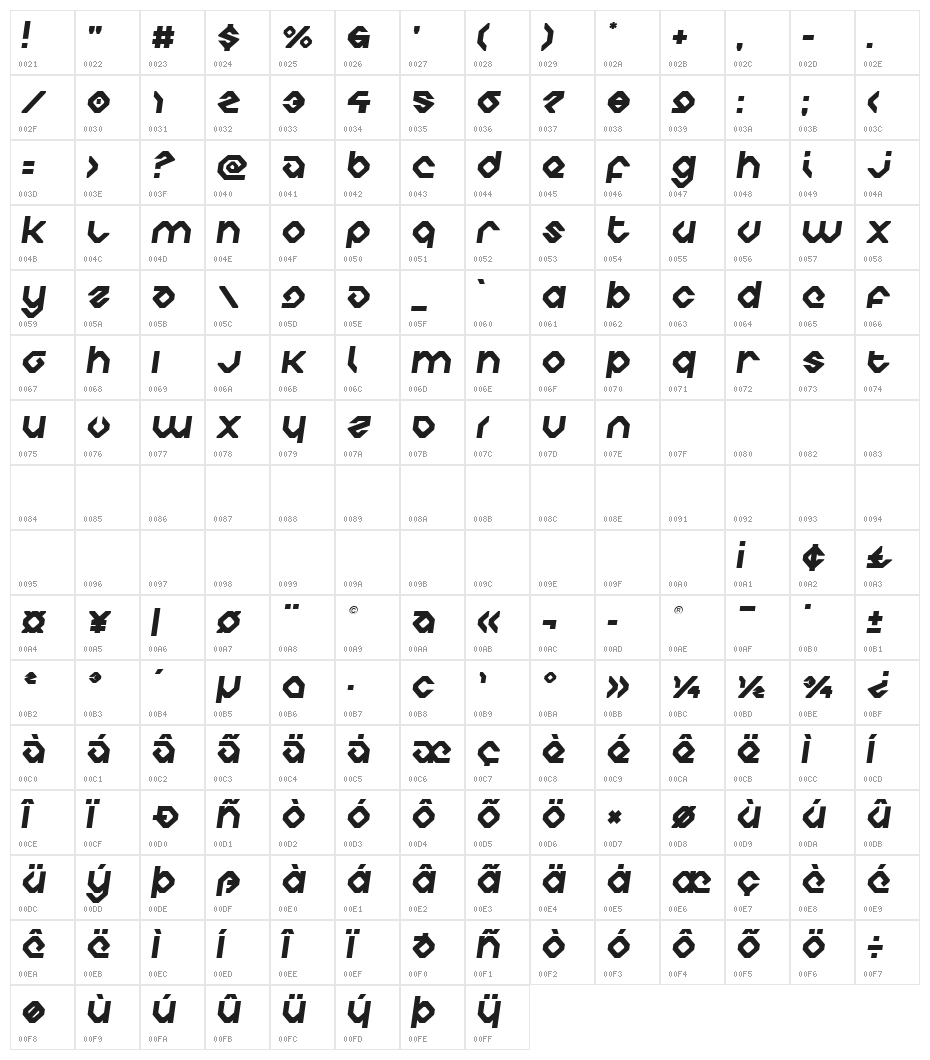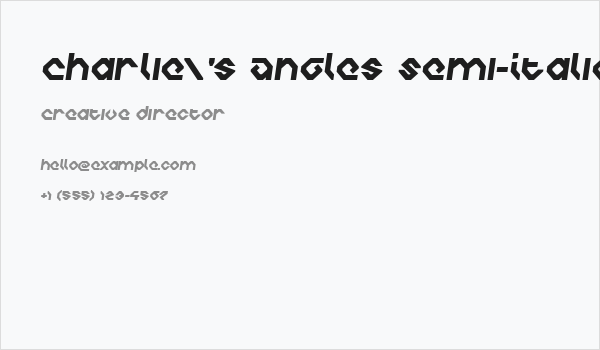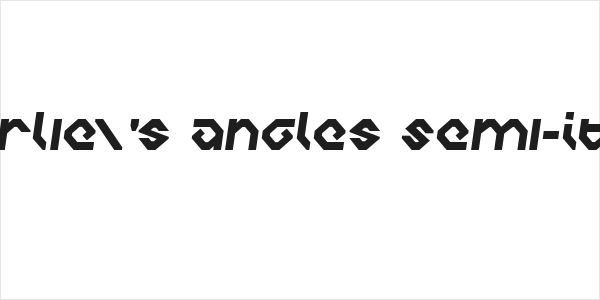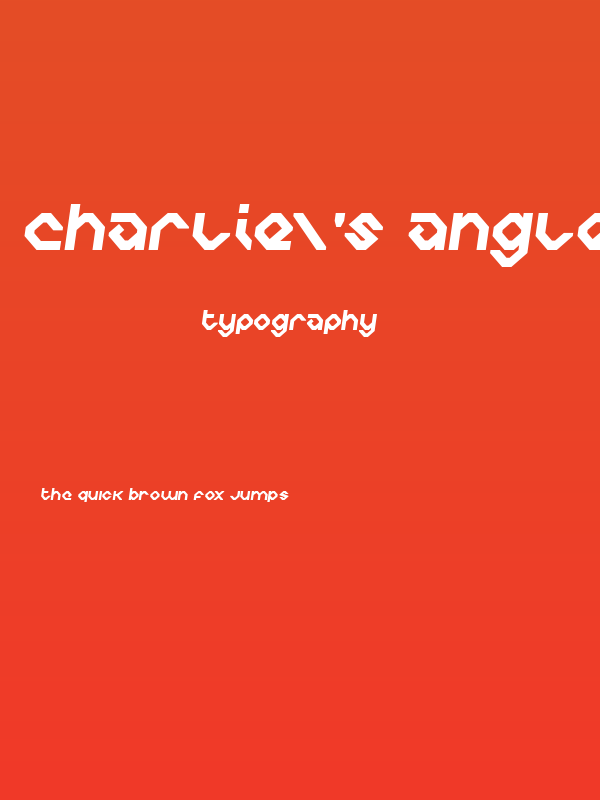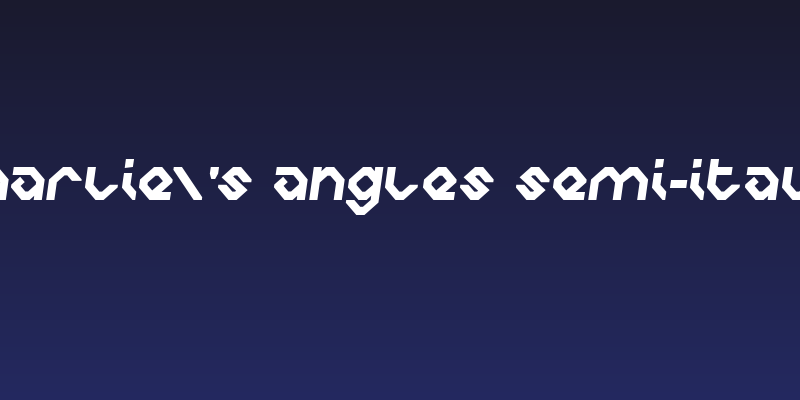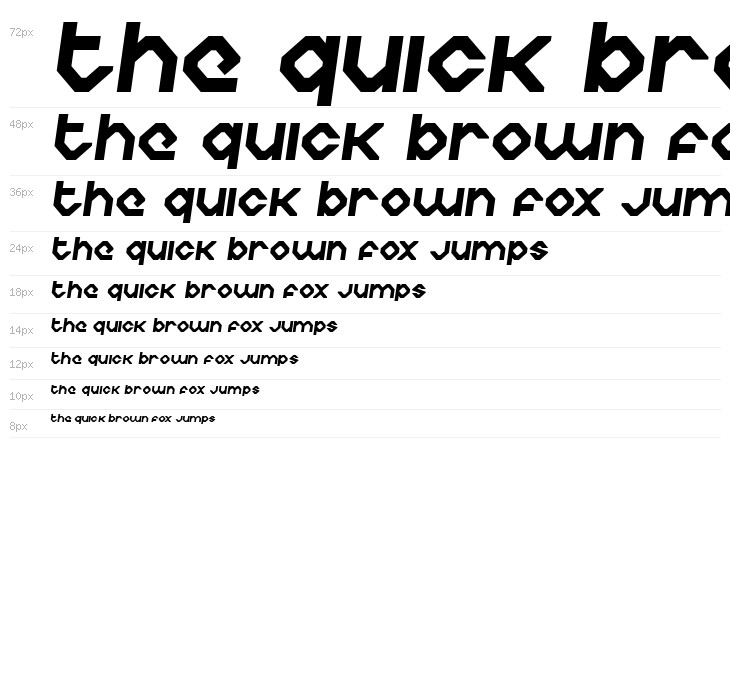
Charlie's Angles Semi-Italic Font
Charlie's Angles Semi-Italic Description
This font features a bold and angular design, characterized by sharp edges and geometric shapes. The letters are slightly italicized, giving them a dynamic and modern appearance. The uppercase and lowercase letters maintain a consistent style, with unique cuts and angles that create a futuristic look. The numbers and special characters follow the same angular theme, ensuring uniformity across all glyphs. The overall design is striking and attention-grabbing, making it suitable for projects that require a bold statement.
| Proposed Projects | Ideal for sci-fi themed designs, video game titles, posters, and branding that requires a futuristic and edgy look. |